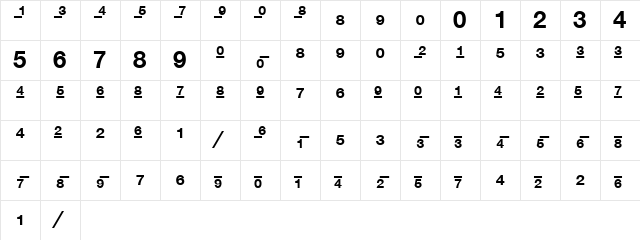
HelveticaFractions Bold
Design Context for HelveticaFractions
HelveticaFractions is a composed and adaptable typeface that performs quietly and consistently across a wide range of design contexts. Its bold stroke weight gives it real presence on the page.